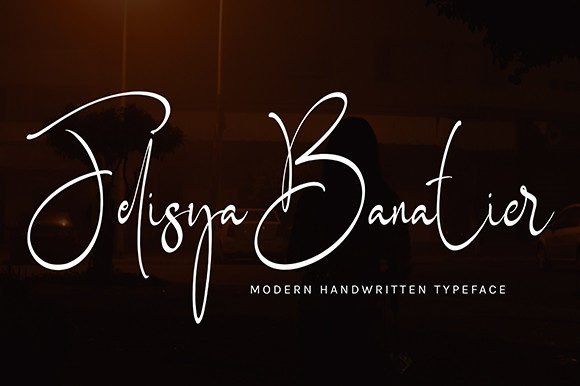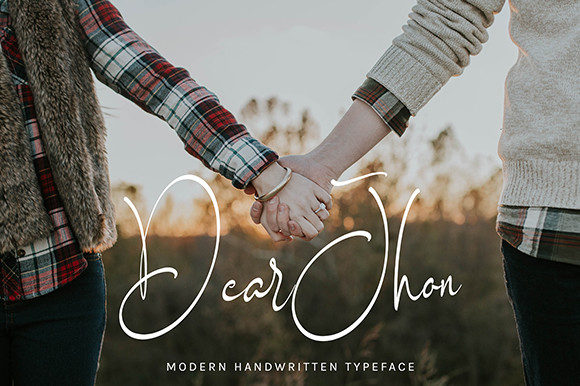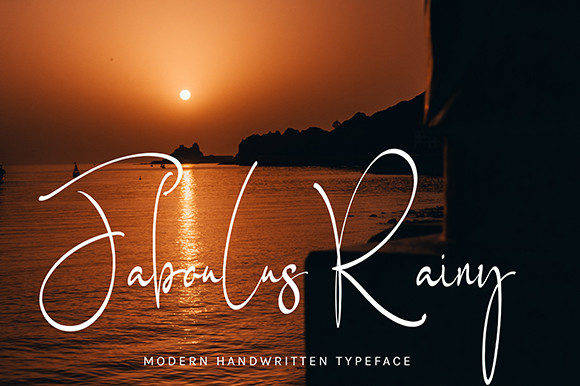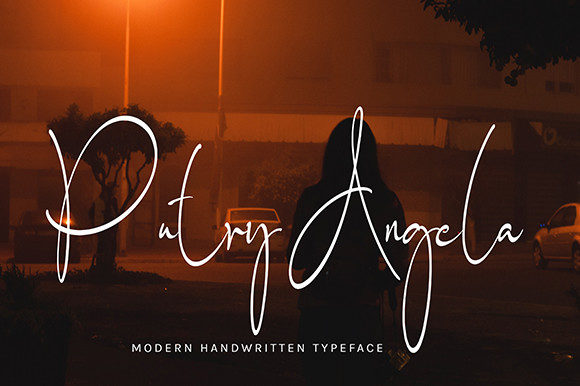
Discover the Elegance of Handwritten Design
As a designer, there’s nothing quite like the thrill of bringing a new idea to life. It’s the moment when creativity and inspiration collide, and the possibilities seem endless. For me, it’s the quiet hours of the morning, sipping coffee, and browsing through font libraries that often sparks the magic. And today, I want to share with you one of my latest discoveries – a font that has captured my heart and imagination.
Meet the Felisya Banatier Font, a delicate and charming handwritten script that’s perfect for creating beautiful, intricate designs. With its thin lettering and elegant flair, this font is an absolute gem for designers looking to add a touch of sophistication and whimsy to their work. And the best part? It’s PUA encoded, making it incredibly easy to access all the glyphs and swashes you need to bring your designs to life.
- Unique Characteristics: Elegant script font with a touch of sophistication and a hint of vintage charm.
- Font Style: Script, perfect for adding a personal touch to invitations, wedding stationery, and other special occasions.
Felisya Banatier Font Review
I recently had the chance to work with the Felisya Banatier font, and I must say it’s a fascinating addition to any design project. Here are my honest thoughts on this font:
- ✨ Unique blend of elegance and playfulness: The Felisya Banatier font strikes a perfect balance between sophistication and whimsy, making it suitable for a wide range of designs.
- ✨ Excellent legibility: The font is highly readable, even at smaller sizes, which is crucial for ensuring that your message gets across to your audience.
- ✨ Versatile: Whether you’re working on a branding project, creating a piece of artwork, or designing a website, Felisya Banatier is an excellent choice.
- ⚠️ Limited language support: Unfortunately, the Felisya Banatier font doesn’t offer comprehensive language support, which might be a concern for projects requiring text in multiple languages.
- ⚠️ Not ideal for body text: While the font is excellent for headings and titles, it might not be the best choice for body text due to its relatively large x-height and condensed letterforms.
The Felisya Banatier font is a great addition to any designer’s toolkit. Its unique style and excellent legibility make it an excellent choice for a wide range of projects. However, its limitations should be taken into consideration, especially when working with multiple languages or large blocks of text.
Tips for Getting the Most Out of Felisya Banatier Font
Here are a few tips for getting the most out of the Felisya Banatier font:
* Use the font in conjunction with other elegant fonts to create a sophisticated look.
* Experiment with different font sizes and colors to create visual interest.
* Use the font in headings and titles to add
Q: What is the recommended font size for optimal readability with Felisya Banatier?
The recommended font size for optimal readability with Felisya Banatier is between 12pt and 24pt. However, this may vary depending on the specific design context, including the surrounding typography, line spacing, and screen resolution.